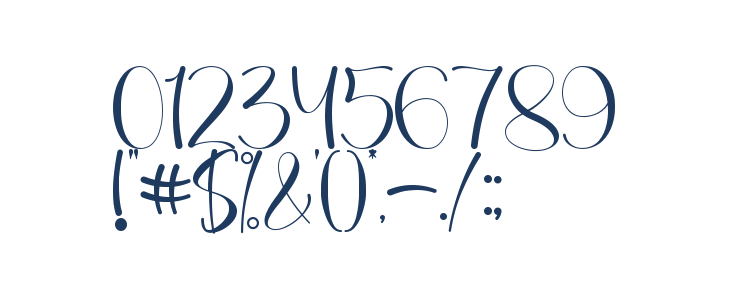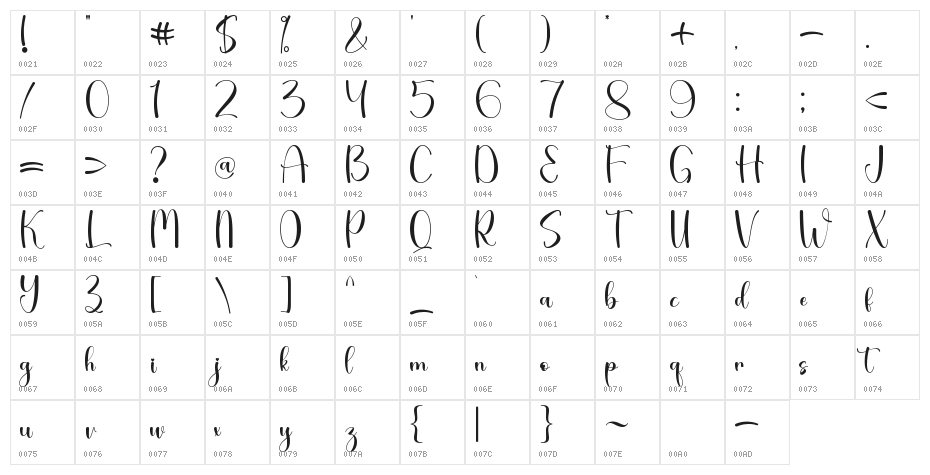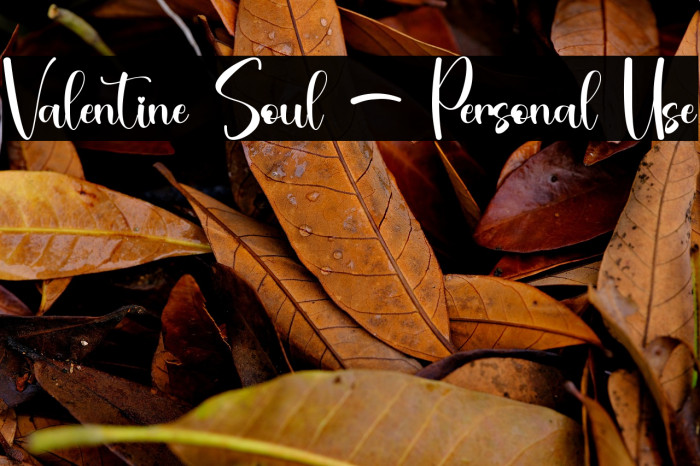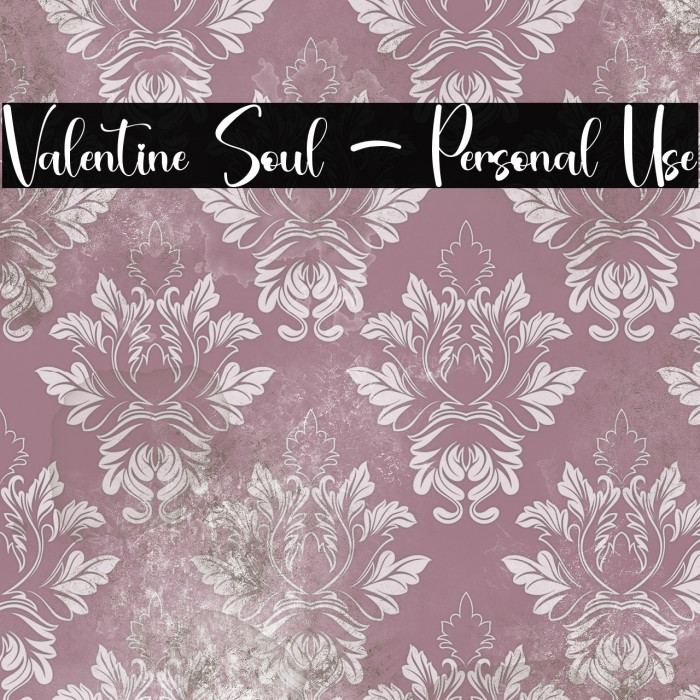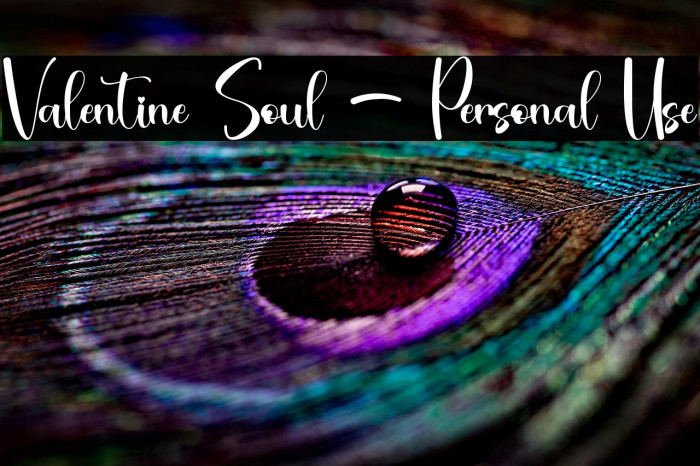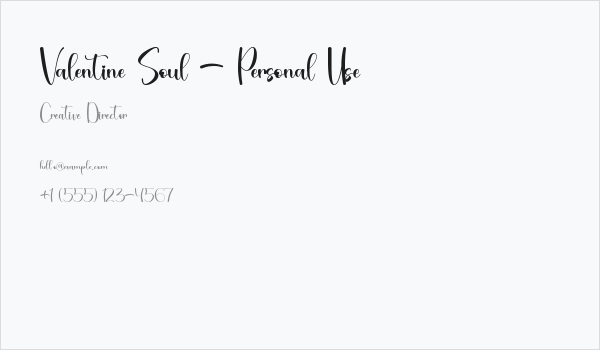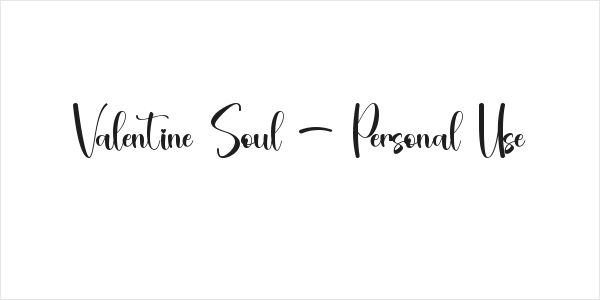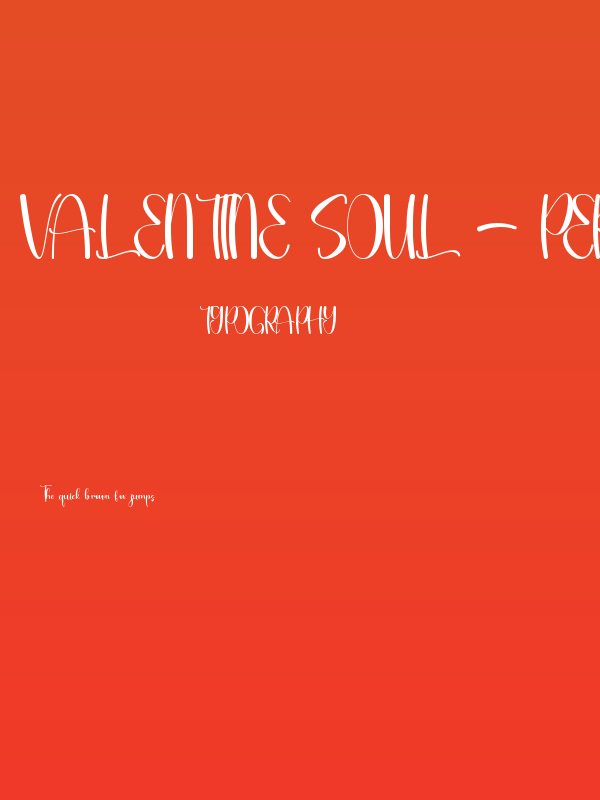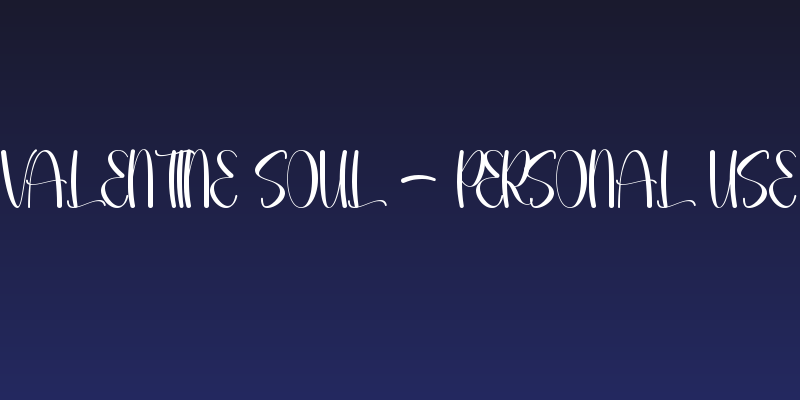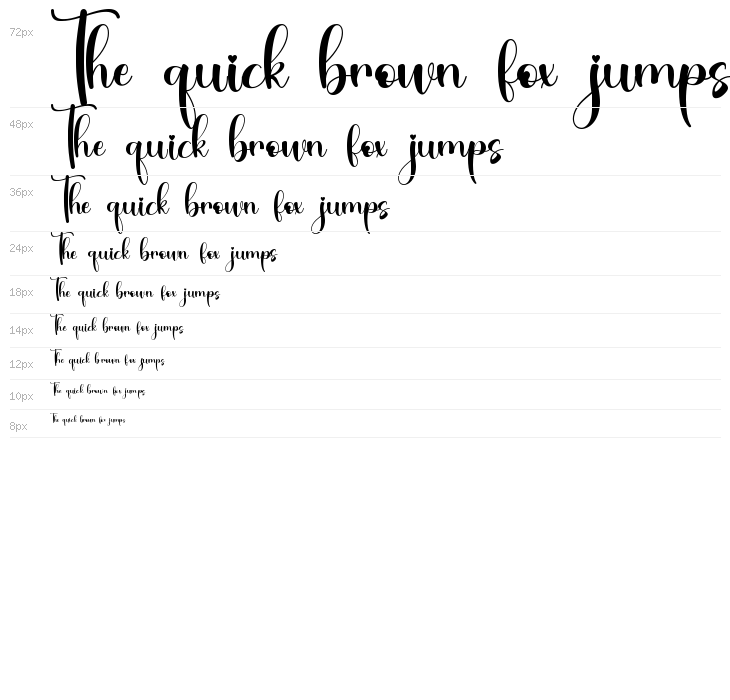
Valentine Soul - Personal Use Font
Valentine Soul - Personal Use Description
This font features a whimsical and elegant script style, characterized by its flowing, interconnected letters and playful loops. The uppercase letters are tall and slender, with a mix of thick and thin strokes that add a dynamic feel. The lowercase letters maintain a consistent flow, enhancing readability while preserving the decorative nature. The numerals are uniquely styled to match the overall aesthetic, with a blend of curves and straight lines. Special characters are creatively designed, adding a touch of flair to any text. This font exudes a romantic and artistic vibe, making it perfect for projects that require a personal and heartfelt touch.
| Proposed Projects | Ideal for wedding invitations, greeting cards, personal branding, and romantic-themed designs. |